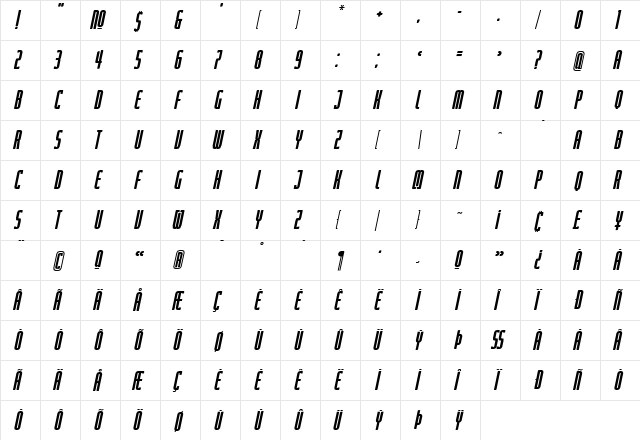
Judgement Italic Font Preview
Judgement Italic
Judgement Italic Font Details
Design Context for Judgement Typeface
Judgement takes a measured approach to typography — its balanced proportions and neutral character make it a reliable workhorse for both digital and print work. Its italic angle brings a sense of urgency and motion to the letterforms.
Pro Tip: Use Judgement for emphasis, pull quotes, and subheadings where its slanted energy can add rhythm to the layout.